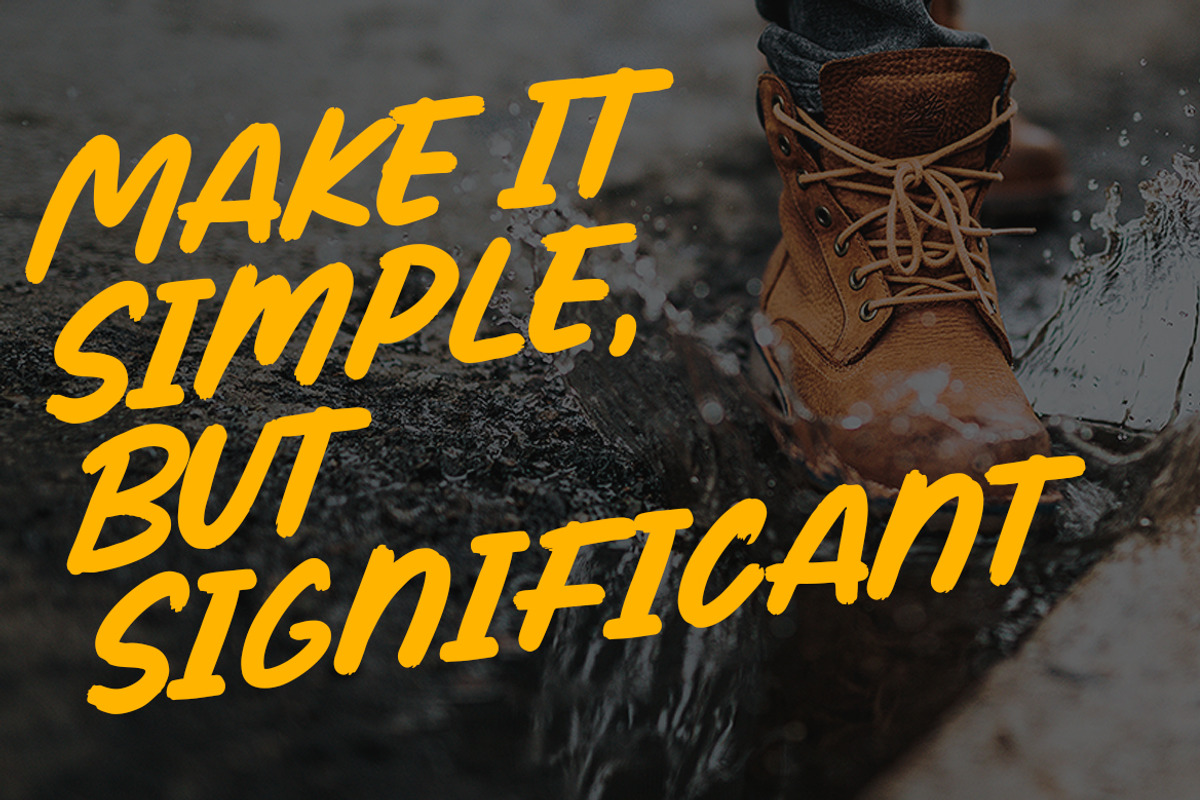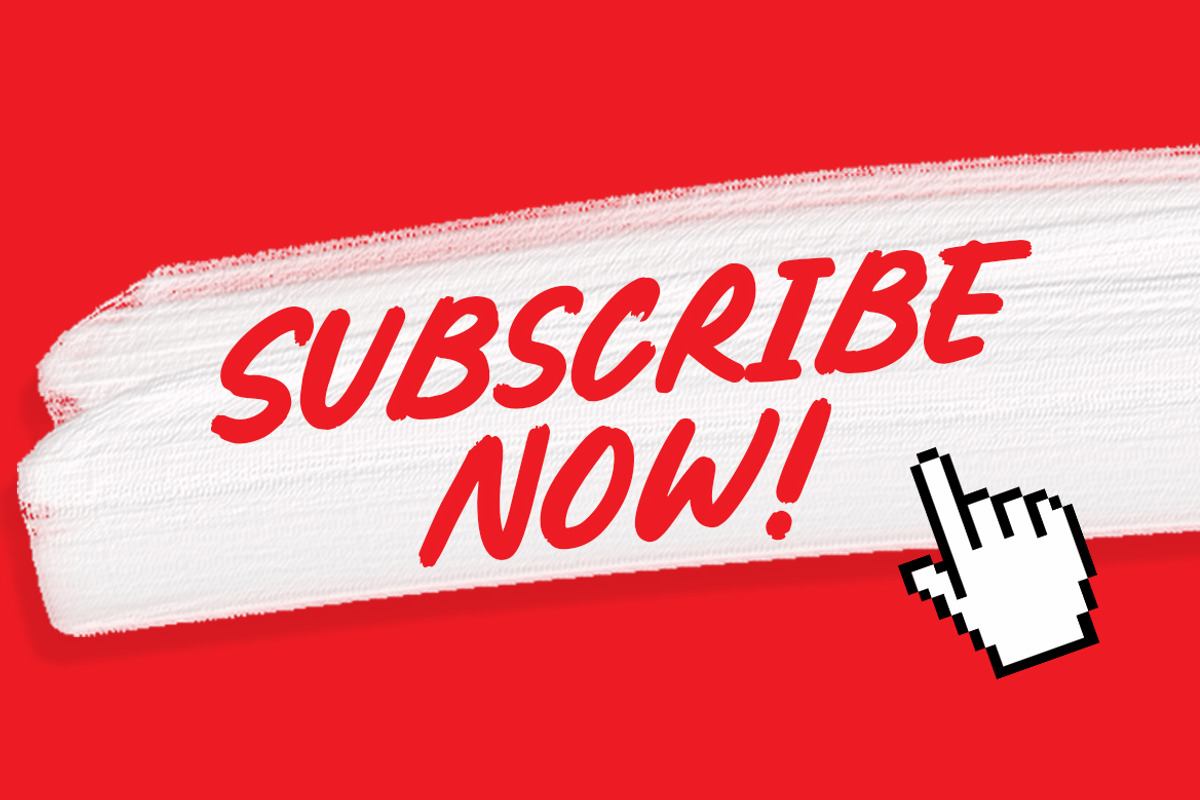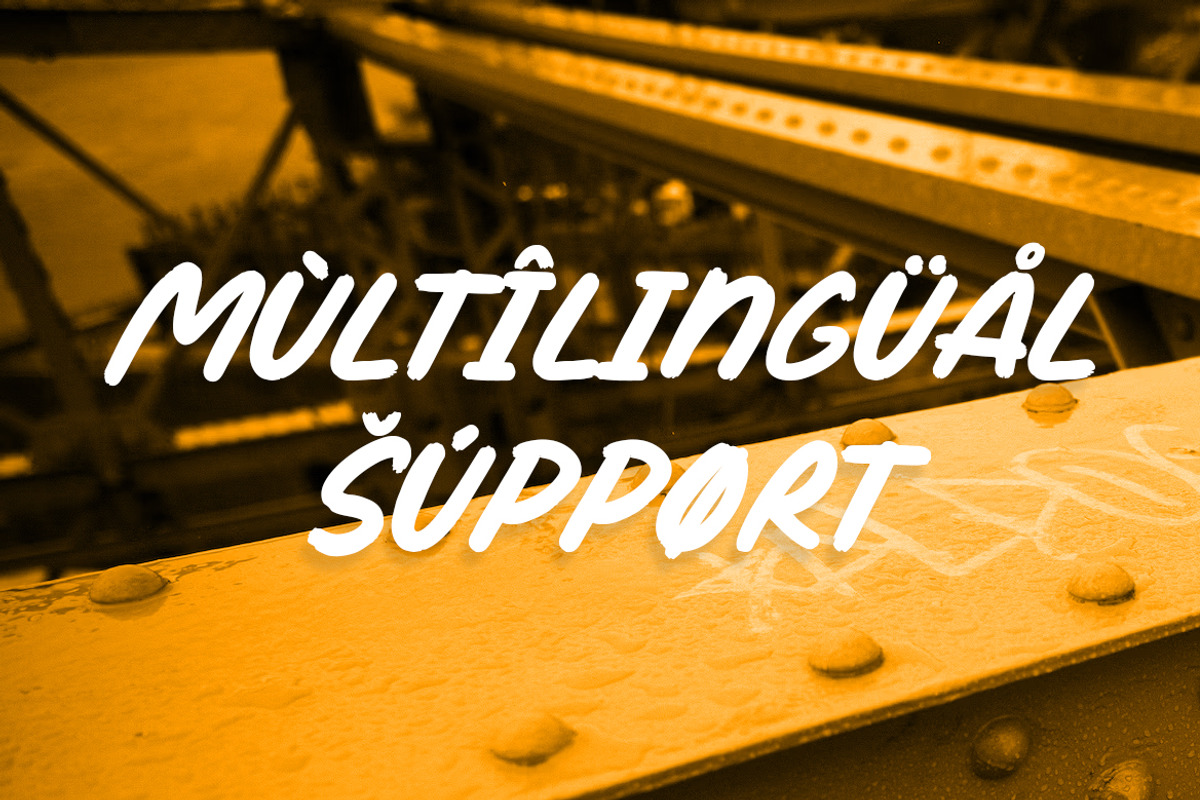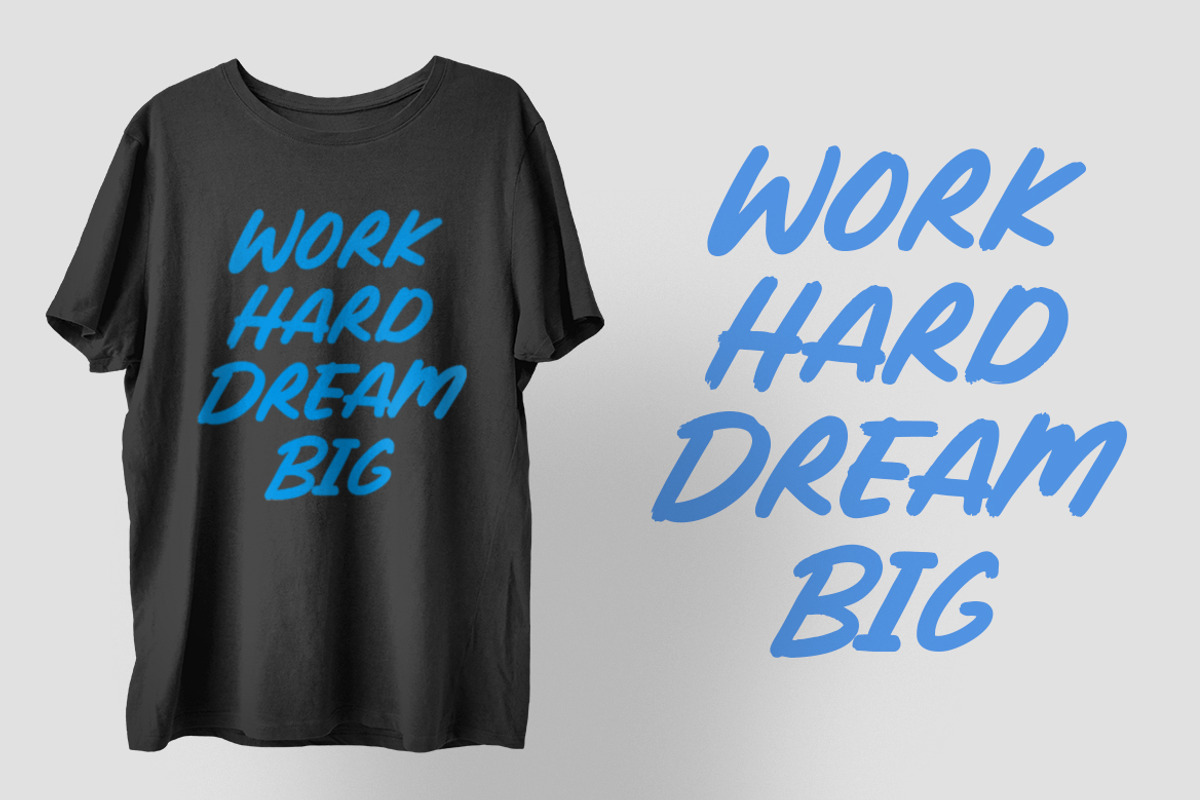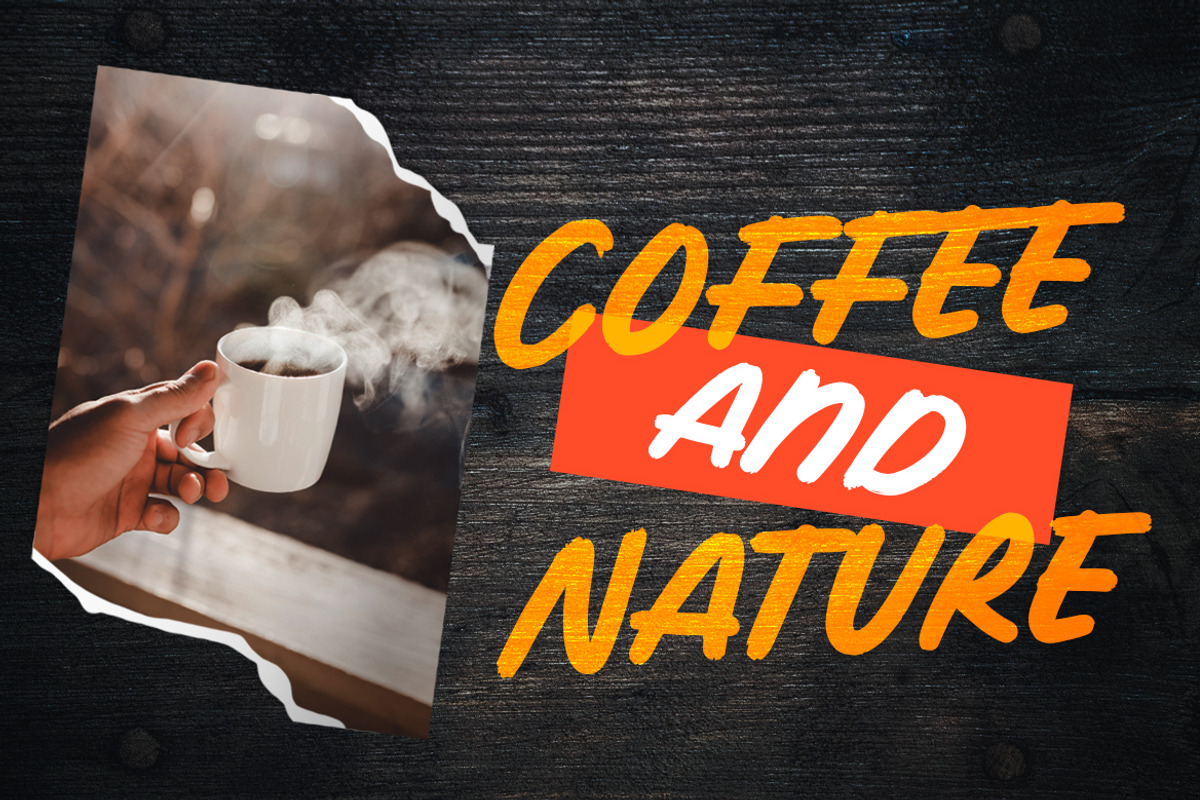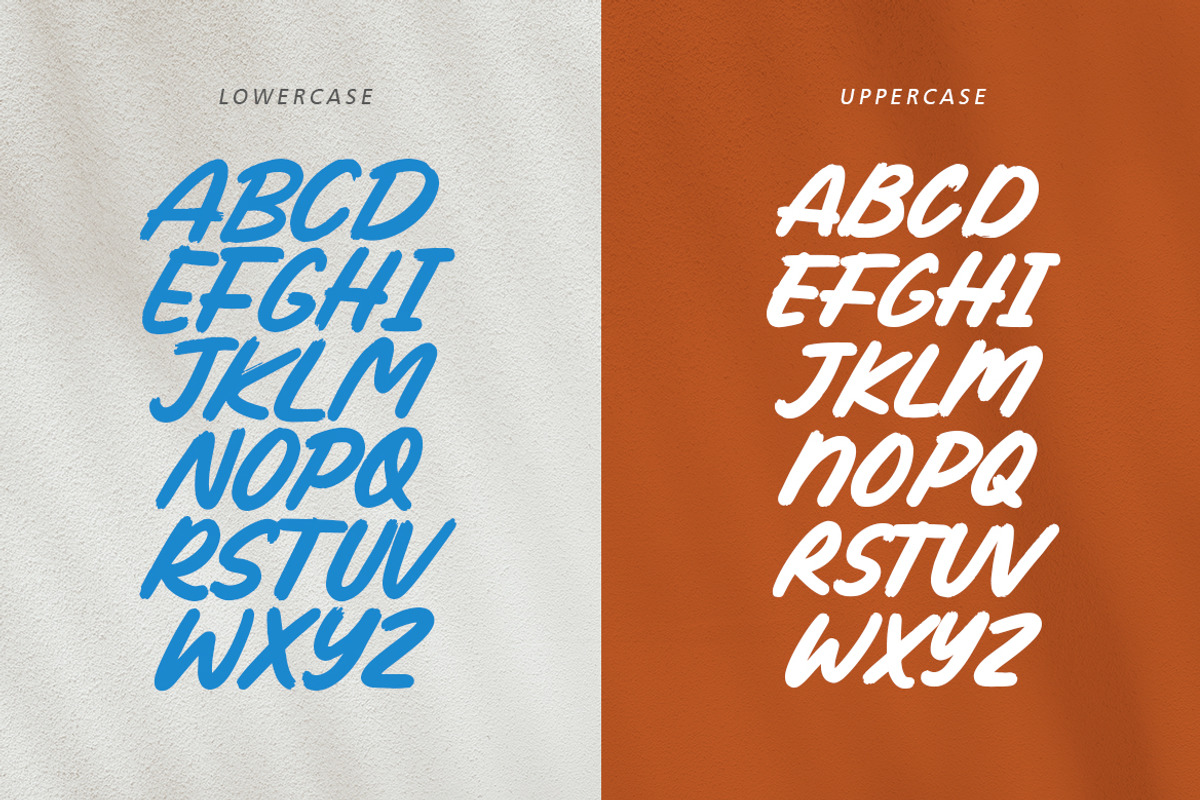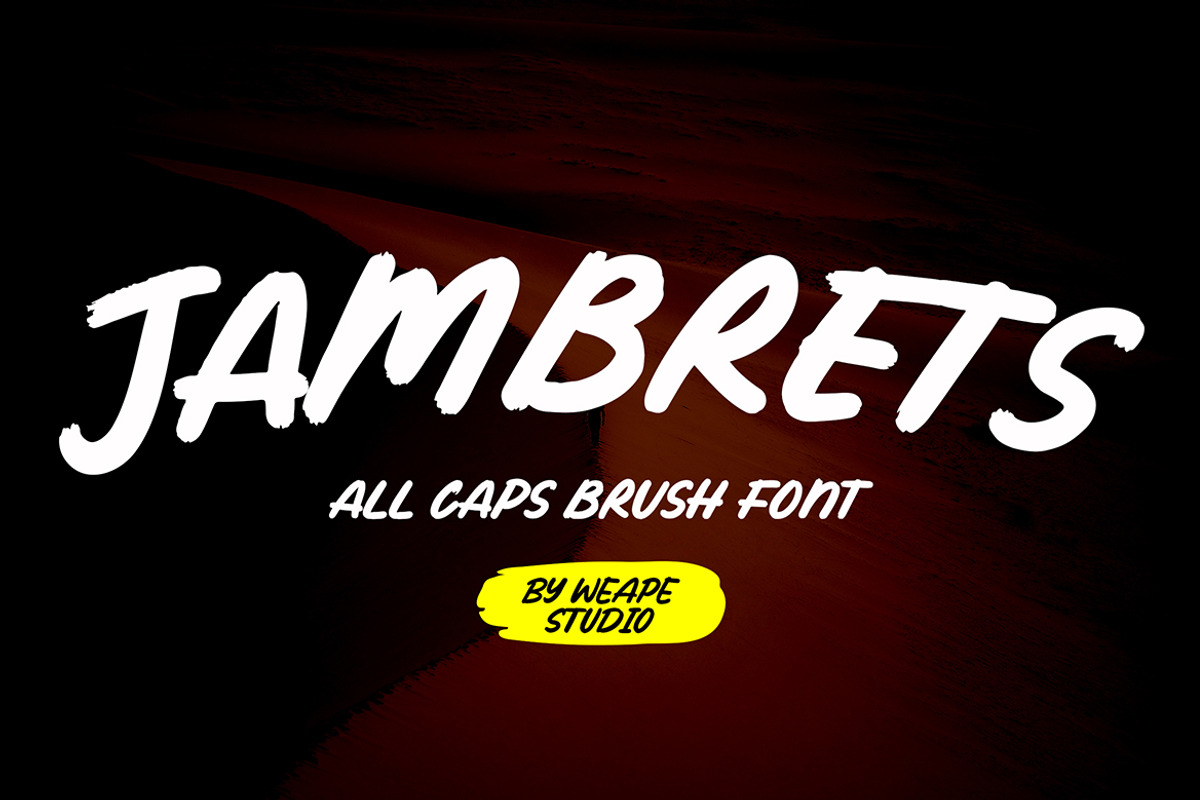
Jambrets - All Caps Brush Font
Introducing Jambrets - All Caps Brush Font! Jambrets is brush font bursting with natural rough dry brush strokes, and the stroke of hand sharp and quickly. You can use and enjoy Jambrets, for anything from promotional material to product packaging, merchandise, and branding projects. You can create with uppercase and lowercase combination, and make it as if you wrote it yourself.
All fonts is capitals containing upper & lowercase characters, numerals, multilingual support, and a large range of punctuation.